Le Plateau
Location:
Montreal
Year:
2024
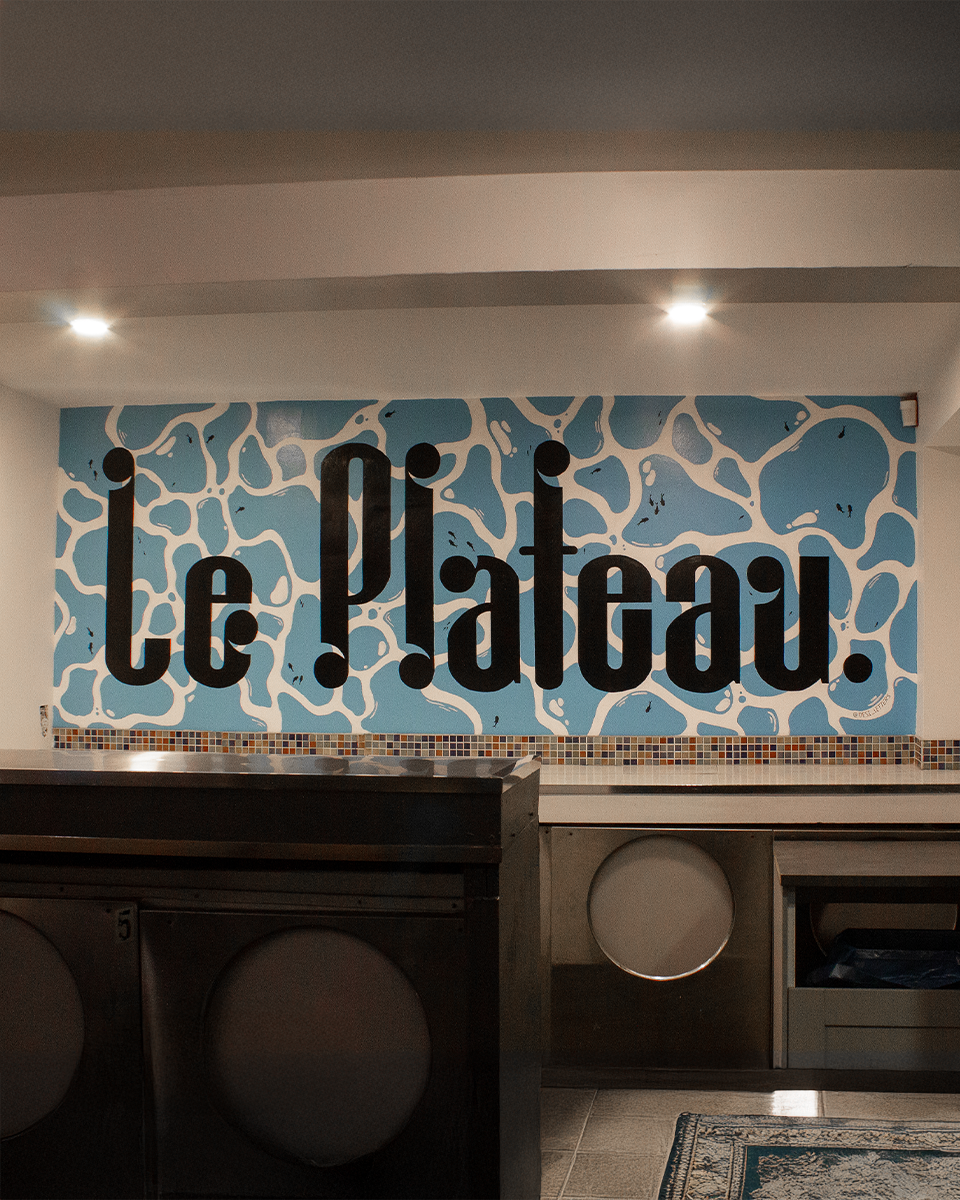
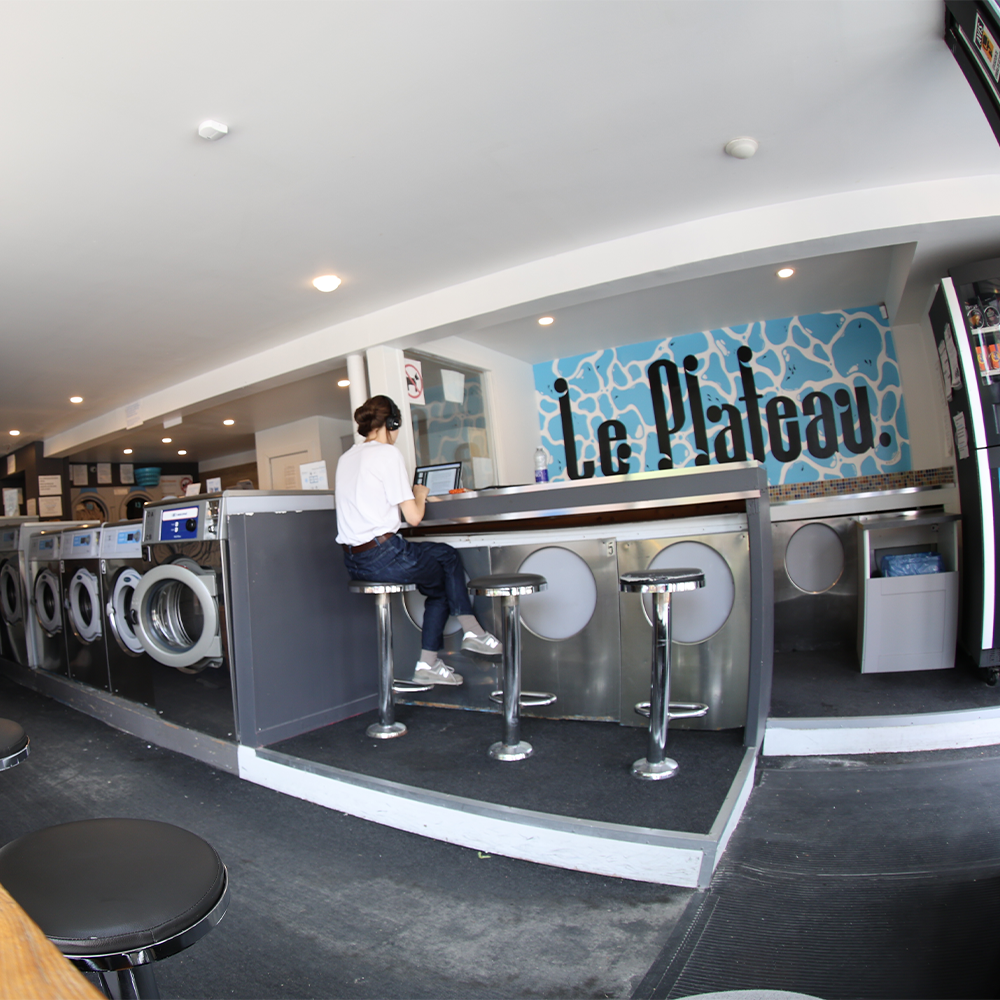
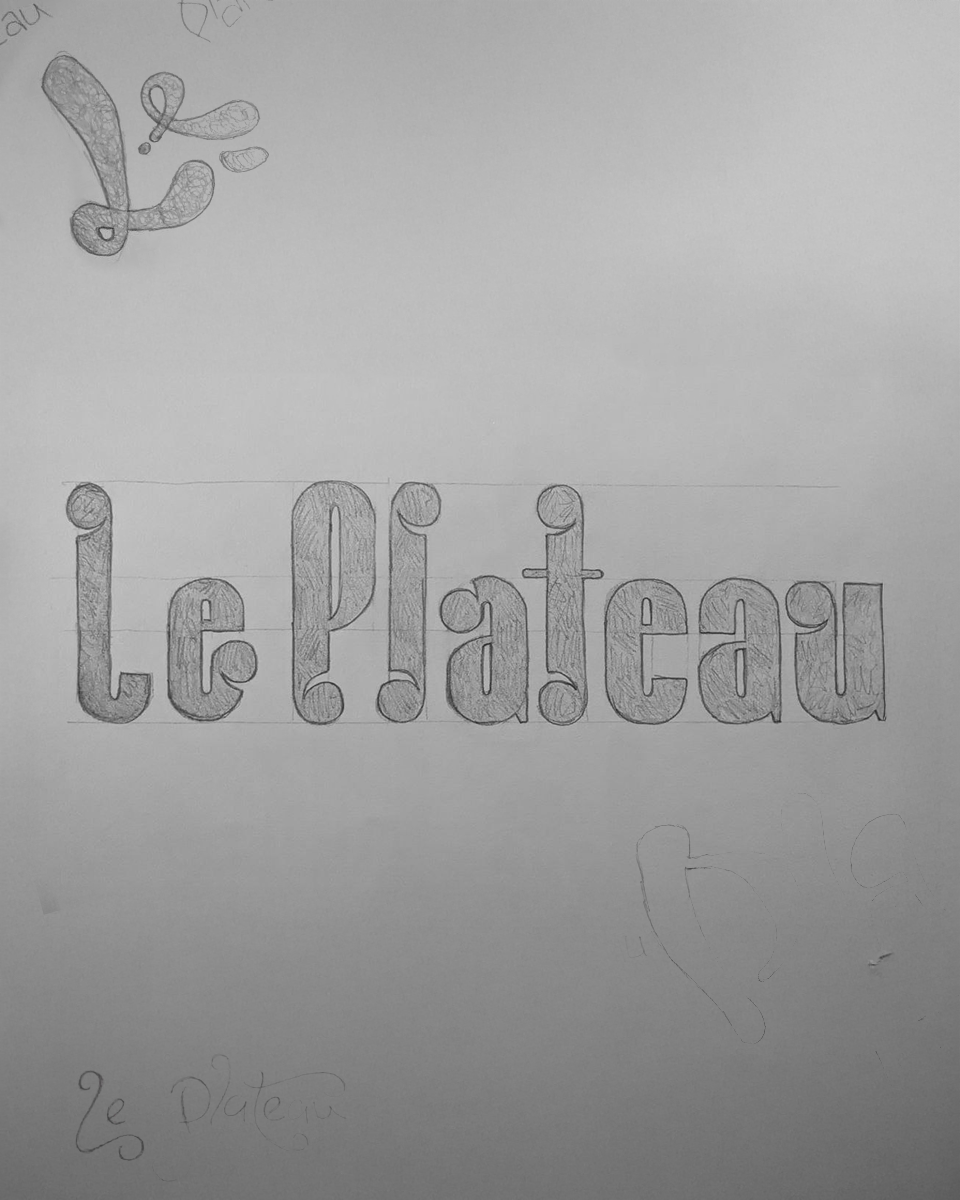
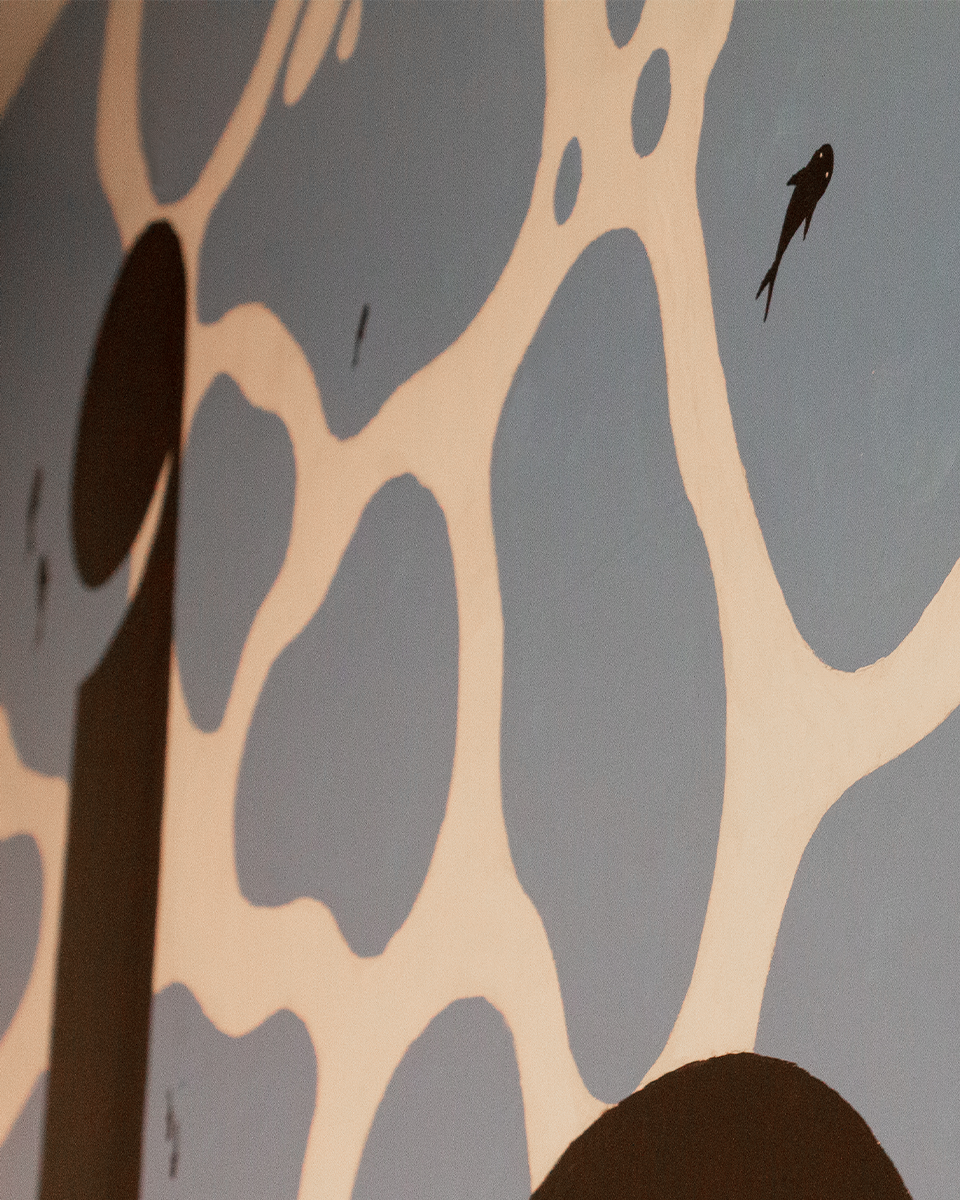
About the Mural
A playful serif design set against a flowing water background, adding a fresh touch to the space. This is one of the only laundromats in the area with comfortable seating where you can study, work, or just vibe while your laundry gets done. Why not elevate the experience? We did.
- Date: 2024